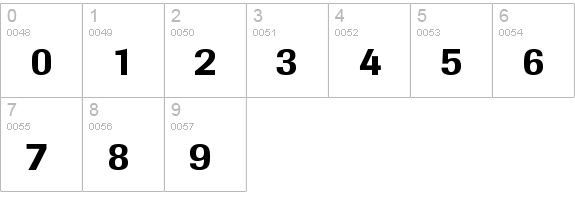
Berthold Imago BQ Medium is a balanced, medium-weight variant in the Berthold typeface family \xE2\x80\x94 well suited to sub-headlines, navigation, and balanced editorial work.
Berthold Imago BQ Medium font is a stylish and versatile typeface that exudes elegance and sophistication. With its clean lines and modern aesthetic, this font is perfect for a wide range of design projects, from branding to editorial design. The medium weight strikes the perfect balance between boldness and subtlety, making it ideal for both headlines and body text. What sets Berthold Imago BQ Medium font apart is that it is freely available to download at FontsMarket.com. This means that designers and creatives can easily access this high-quality font without any cost, allowing them to enhance their projects with a professional and polished look. Whether you're working on a website, a poster, a brochure, or any other design project, Berthold Imago BQ Medium font is sure to elevate your work to the next level.